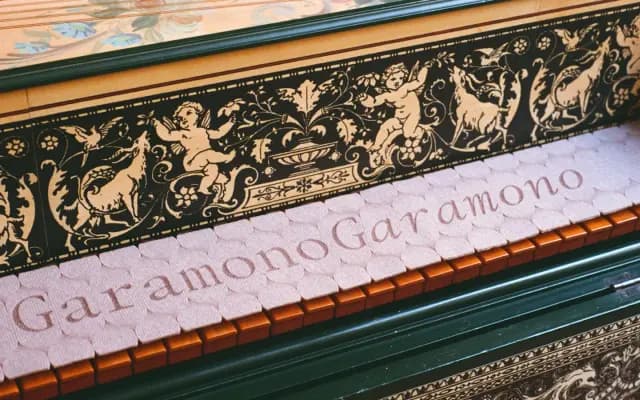
Garamono
A monospaced reworking of Garamond's Renaissance letterforms, forcing humanist proportions into a fixed-width grid with swashes, ligatures and multi-width special forms.
Designed by Ishar Hawkins and published by WiseType in 2025, Garamono takes the old-style forms associated with Claude Garamond and constrains them entirely to a fixed-width system — an approach the foundry cheerfully describes as revisionist history. Two styles, Regular and Italic, carry extensive character sets including swashes, ligatures and final forms that span double or triple the standard cell width, giving the family decorative range within its monospaced logic. The result sits convincingly between historical type revival and contemporary novelty.
Garamono is a monospaced typeface drawn in the style of Claude Garamond's Renaissance romans, forcing proportionally varied humanist letterforms into a fixed-width grid — a structurally unusual combination that places it squarely in the mono category with serif detailing.